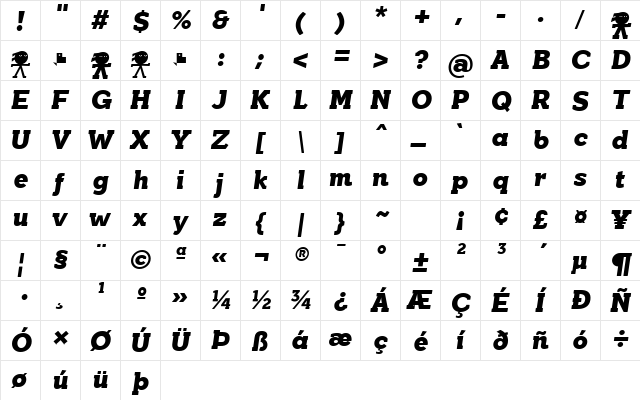
Yonky Black Italic
| Foundry | Fernando Haro |
| Designer | deFharo |
Design Context for Yonky Typeface
Yonky offers clean, dependable letterforms without strong stylistic allegiance, making it a practical choice for designers who need flexibility. The dynamic lean of this cut emphasises speed and emphasis in any layout.